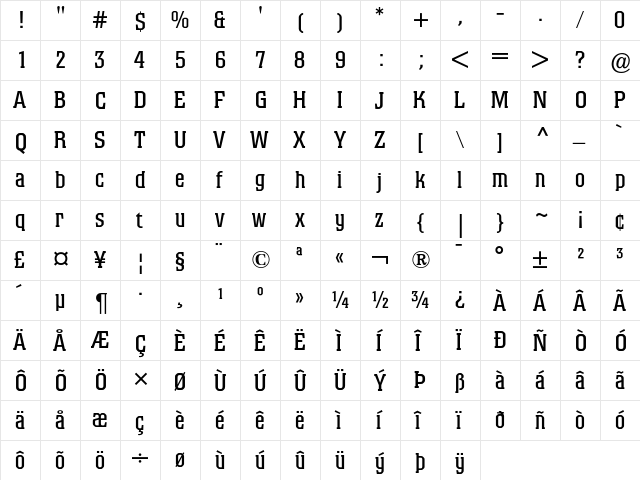
Colossalis Regular
Design Context for Colossalis Typeface
Colossalis takes a measured approach to typography — its balanced proportions and neutral character make it a reliable workhorse for both digital and print work.